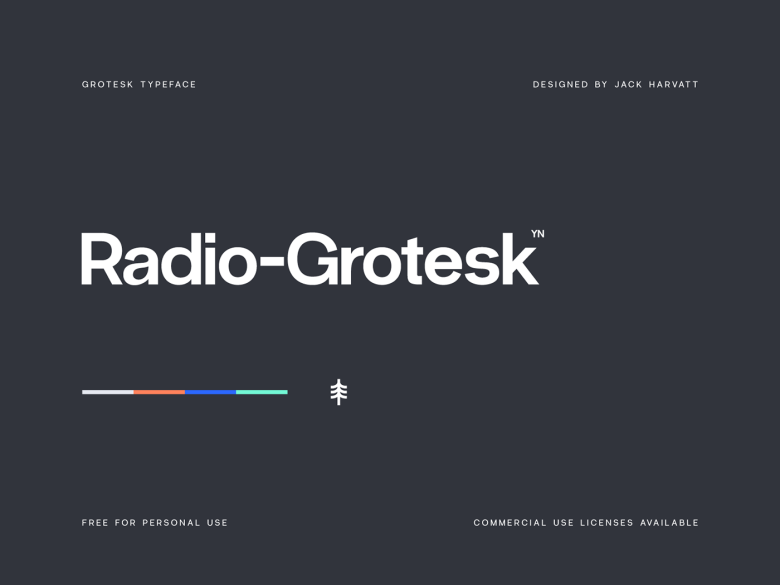
Radio Grotesk Font Family
Allfreefonts always want to bring you the best, most beautiful fonts. This is a Grotesk sans style with some stylistic style to some letter. Designed for readability but can also function as a display text. Perfectly suited for graphic design and any display use. It could easily work for web, signage, corporate as well as for editorial design.
Introducing Radio Grotesk Family! With established majuscules and sophisticated minuscules. It’s brings contemporary characterics to a classic type style. The three weights allow Radio Grotesk Font to be effortlessly adaptable to any project. 3 styles with 340 glyphs each. Language support for the Americas and most of Europe.